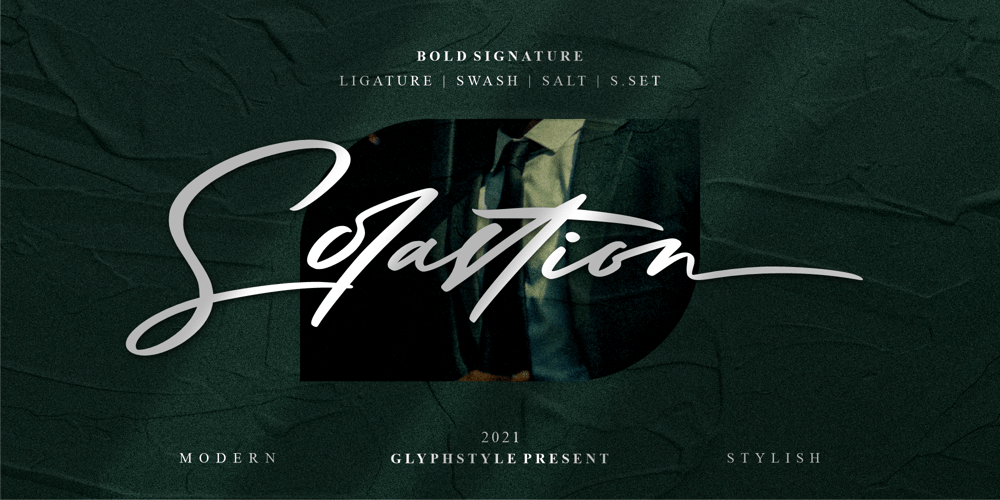
Solastion
Solastion font
Solastion Font Family was designed by Dimas Ardhi and published by GlyphStyle. Solastion contains 1 styles and family package options. Solastion is a signature style font that looks both bold and sheer. An elegant looking font and lots of unique characters like natural hand strokes.– Font feature Uppercase, Lowercase, Numerals & Punctuations, Stylistic Alt, Stylistic Set, Swash Ligature, Multilanguage